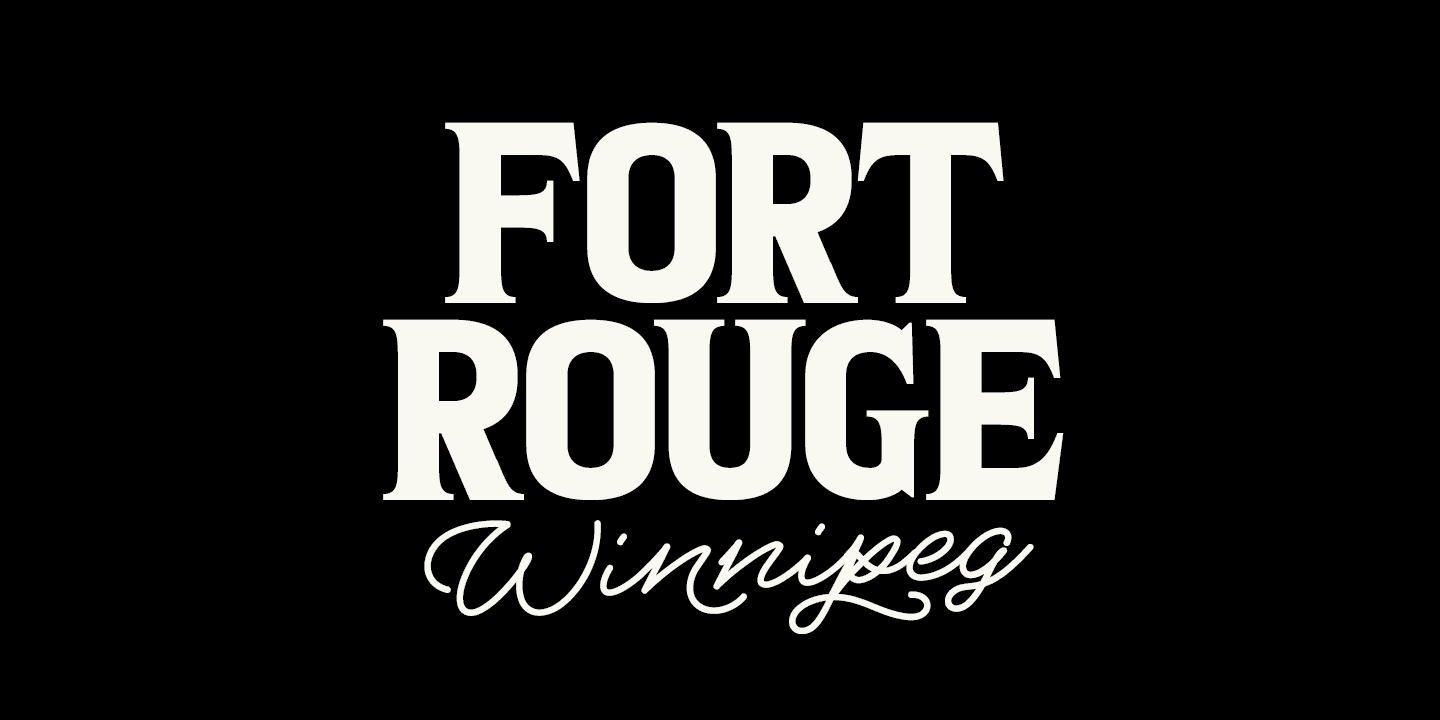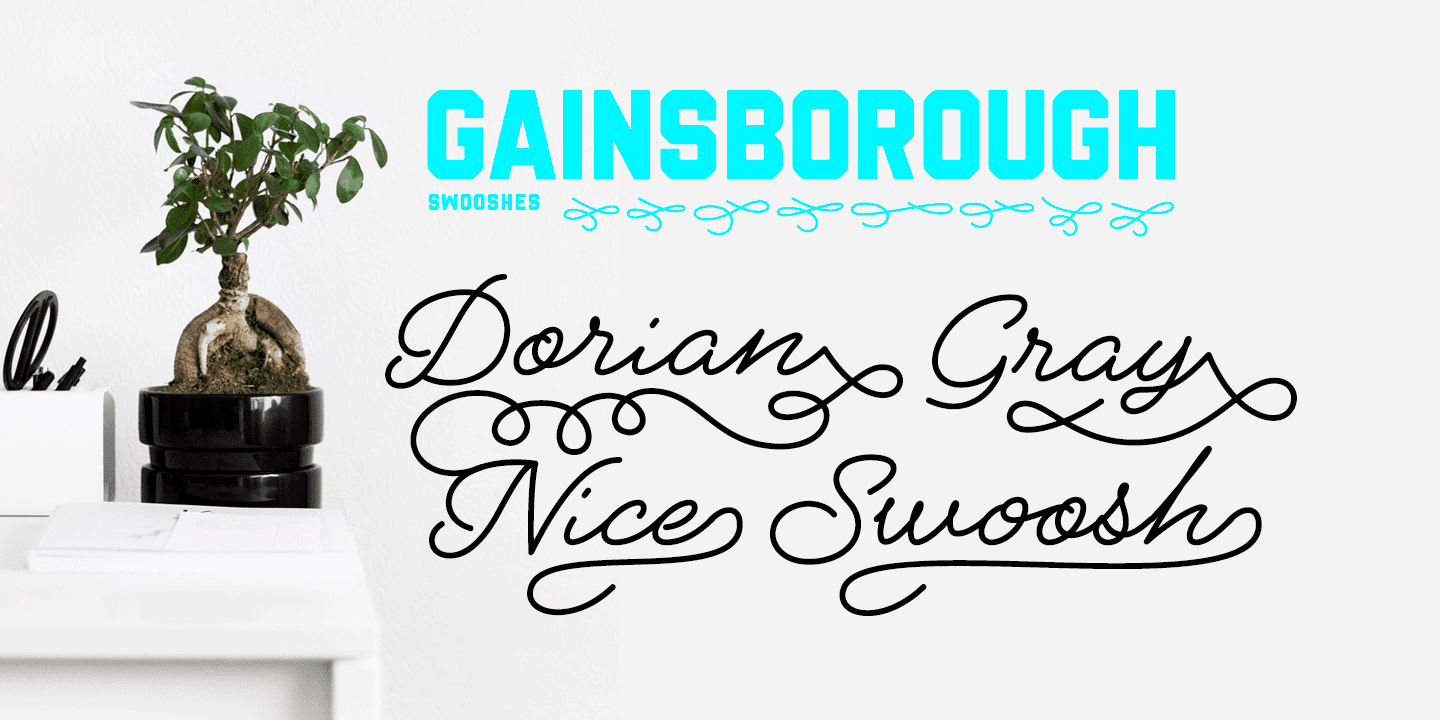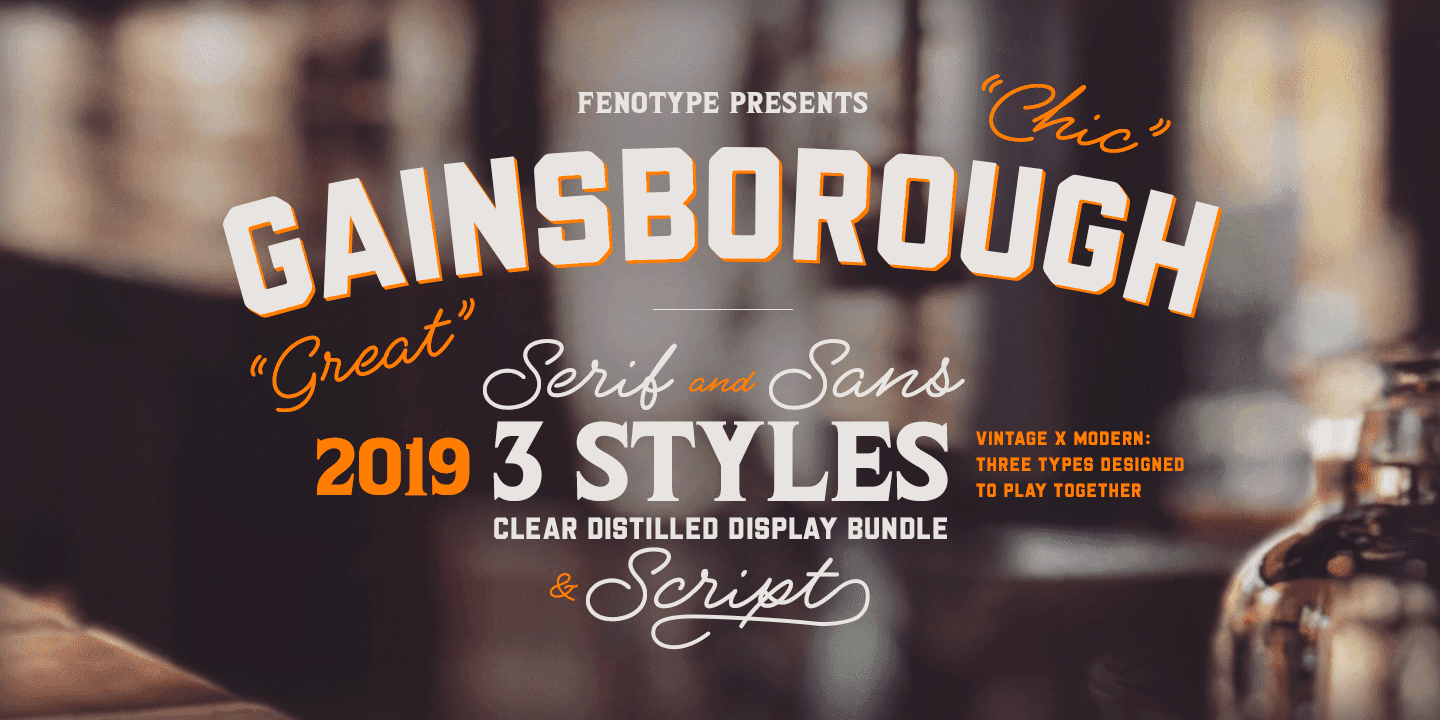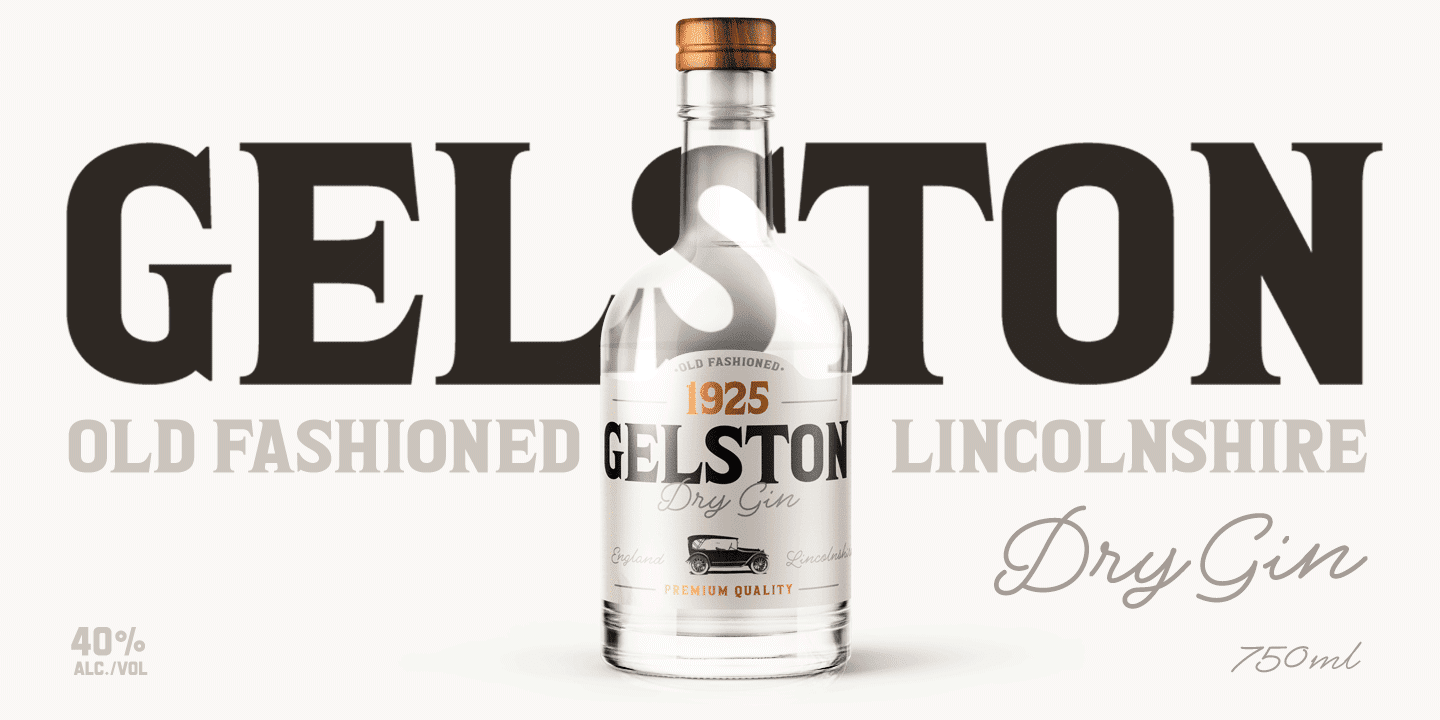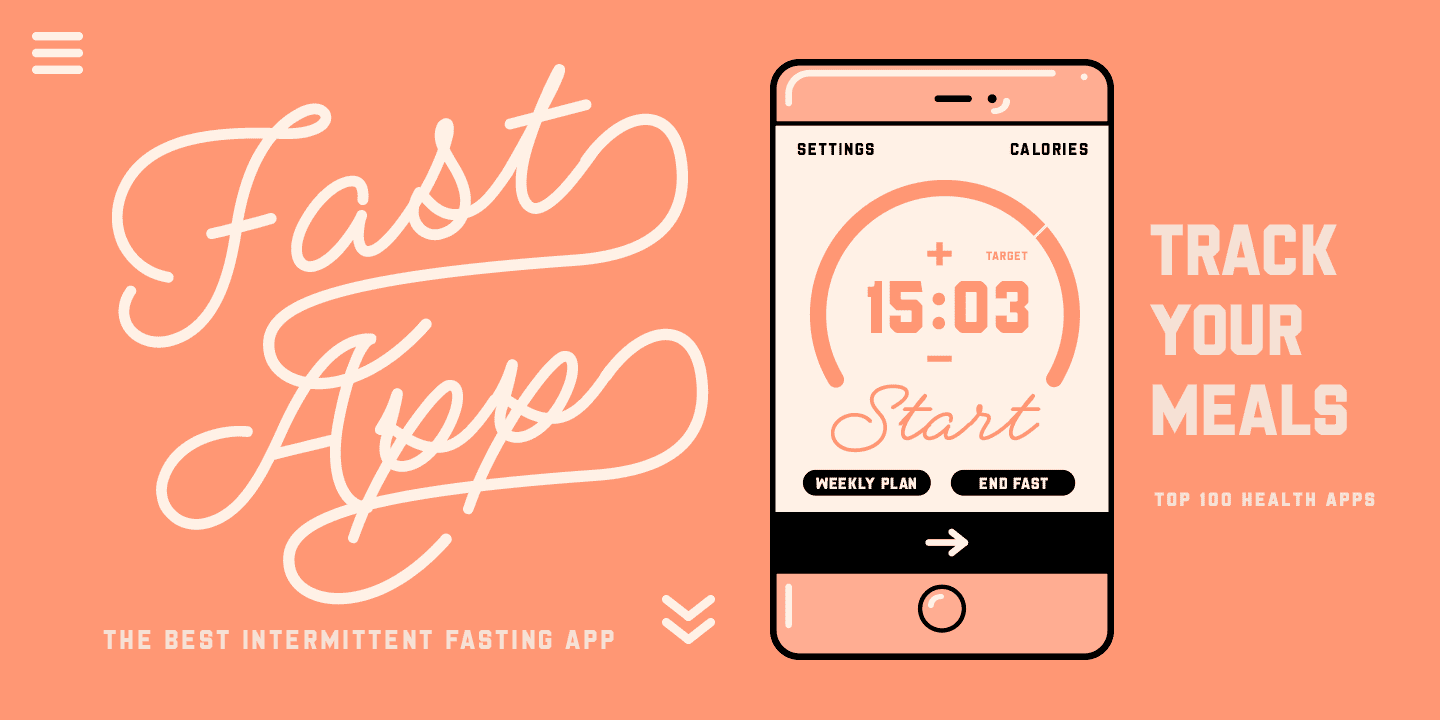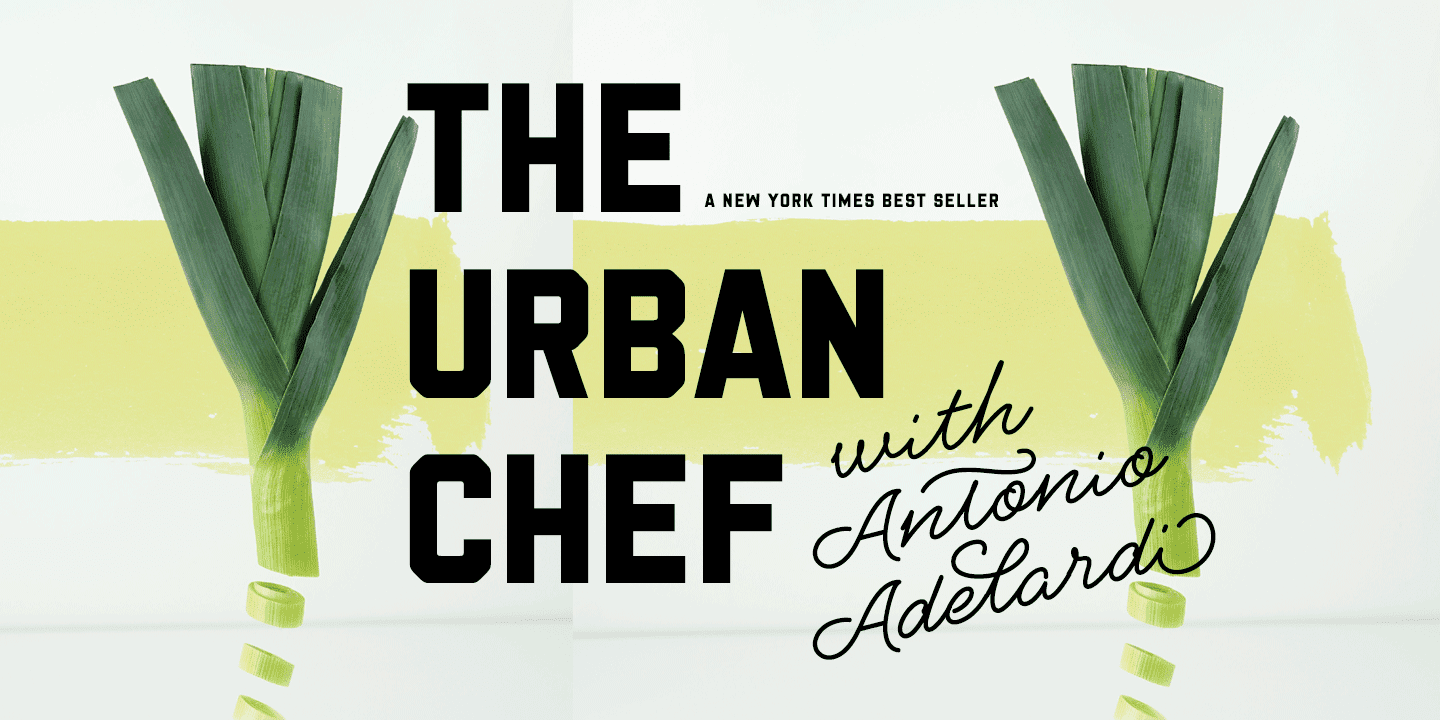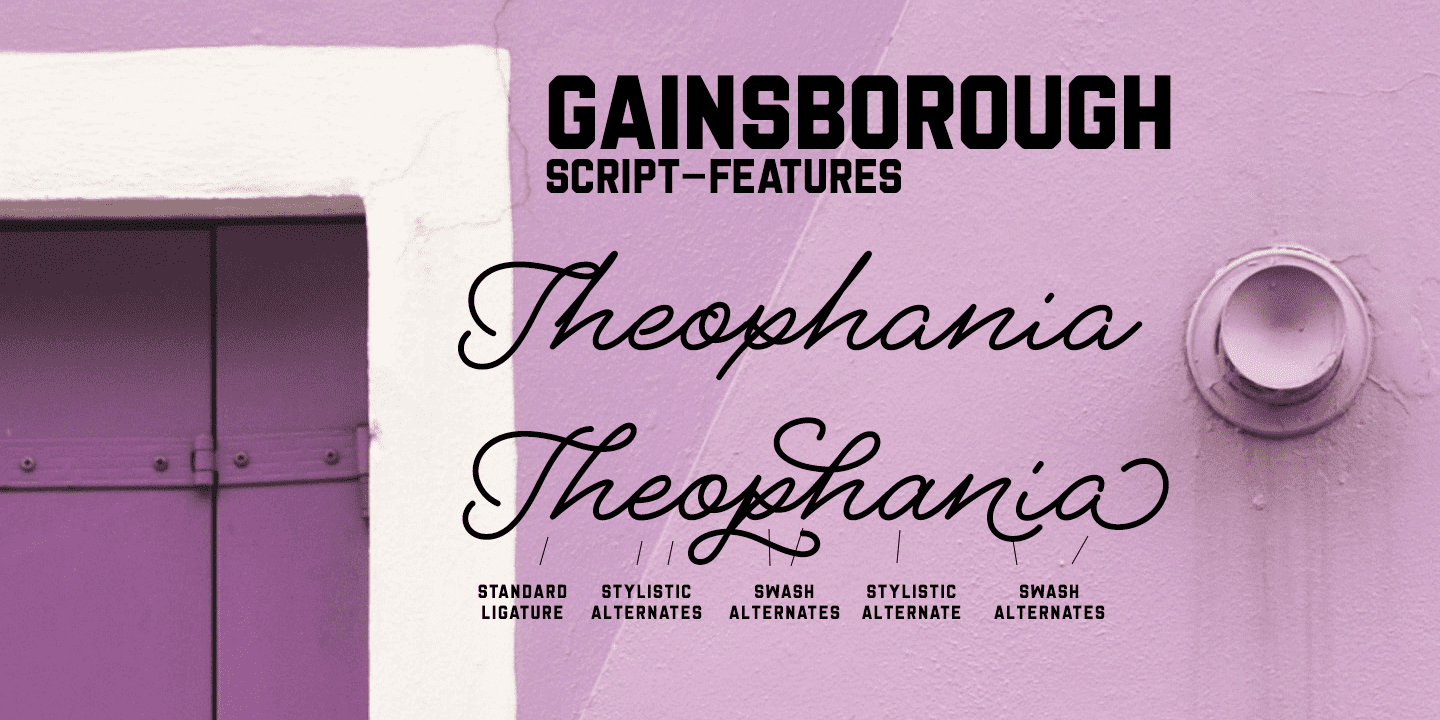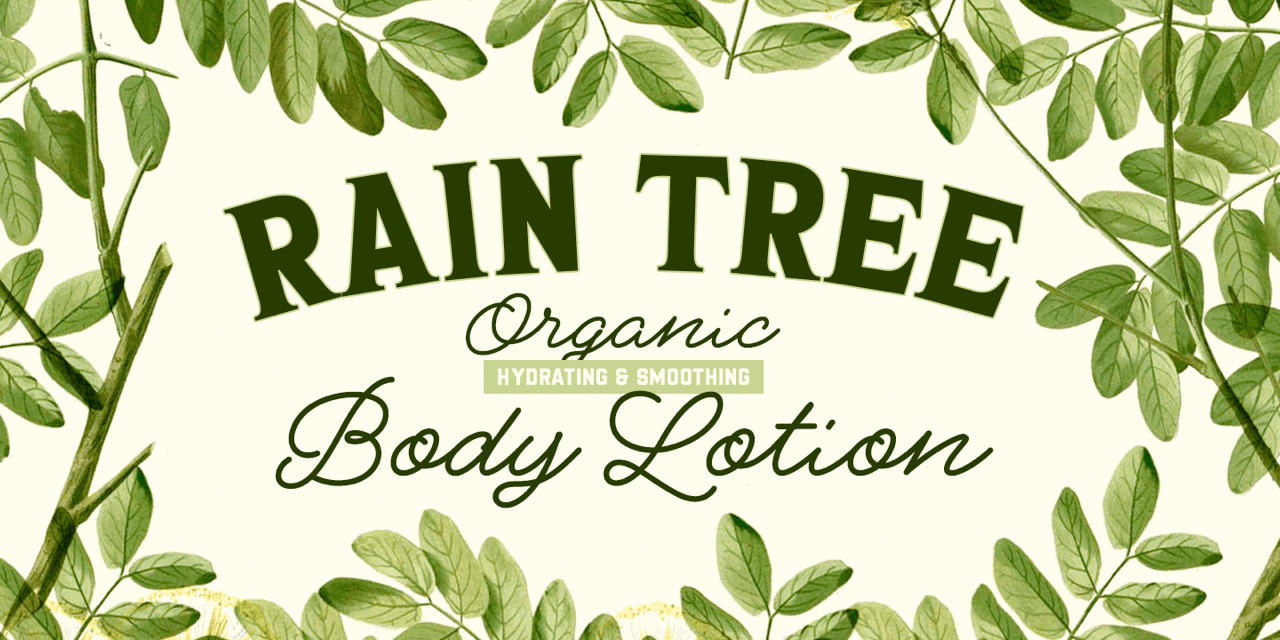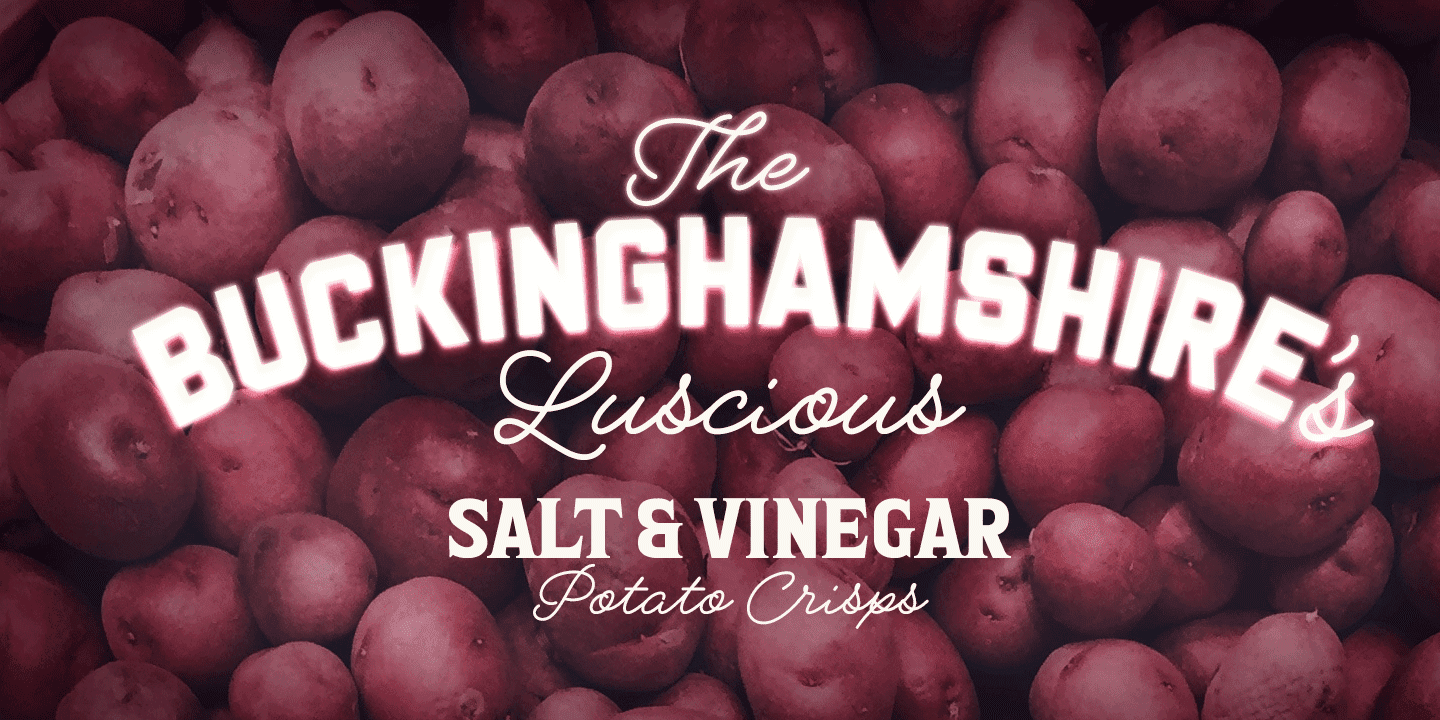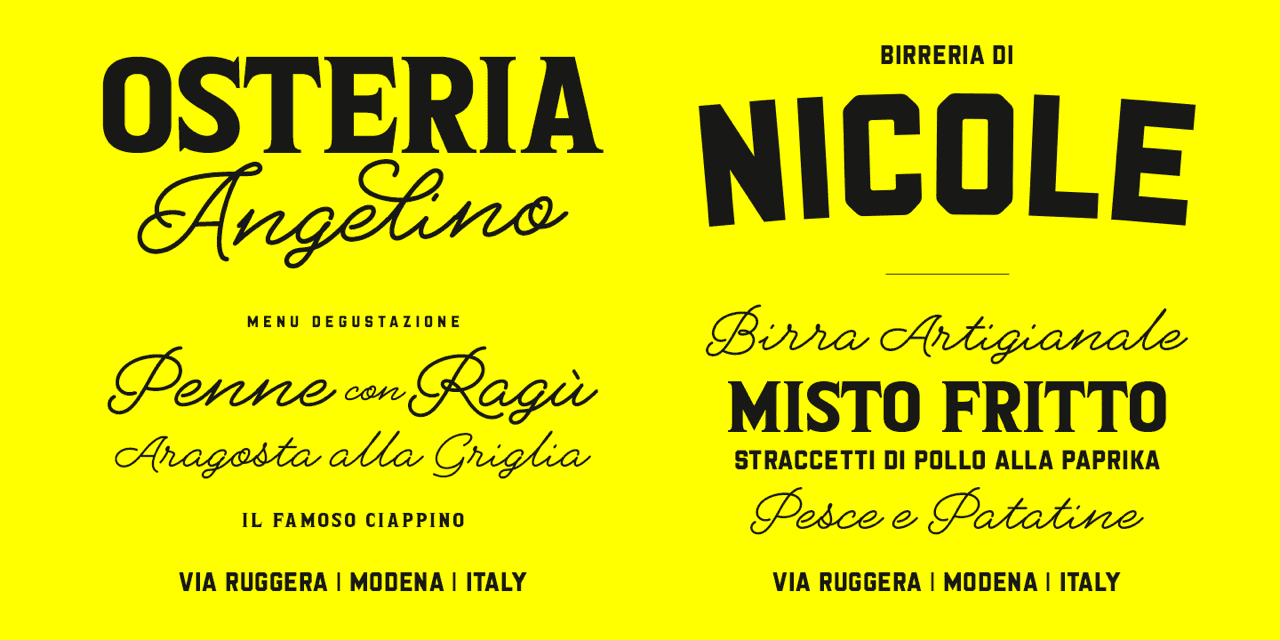
Gainsborough - a clean-cut display pack.
Gainsborough is a display combo pack of three styles and extra swooshes. Gainsborough fonts are straightforward with characteristic clarity. All the three fonts are designed to play together. Gainsborough is very easy to use.
Gainsborough Pen is a clear script inspired by handwriting with pigment pen but polished clean to be legible and inviting. It’s equipped with Contextual Alternates and Standard Ligatures for smooth flow and connections between letters. In addition there’s Stylistic and Swash Alternates for standard characters.
Gainsborough Sans is a sturdy street-sans ready for action. It’s has zero contrast and angular geometric shapes. It’s great for bold headlines. Gainsborough Serif follows pretty much the same proportions but with the serifs and a little bit of contrast and round shapes.
Try combining Gainsborough Swooshes with Gainsborough Pen - type one character with Swooshes in the end of a word typed with Pen and you’ll have an ending swash reaching below the word. There’s different shapes and length swooshes + a couple of center balanced ornaments.